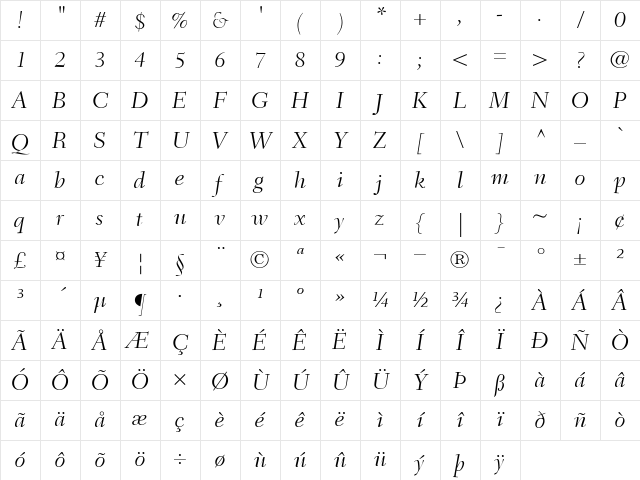
FairfieldLH46-Light LightItalic
Style: LightItalic
Design Context for FairfieldLH46-Light
FairfieldLH46-Light is a composed and adaptable typeface that performs quietly and consistently across a wide range of design contexts. The slanted form adds forward momentum and visual energy. Its slender proportions lend an understated elegance to any composition.
Pro Tip: Use FairfieldLH46-Light for emphasis, pull quotes, and subheadings where its slanted energy can add rhythm to the layout.